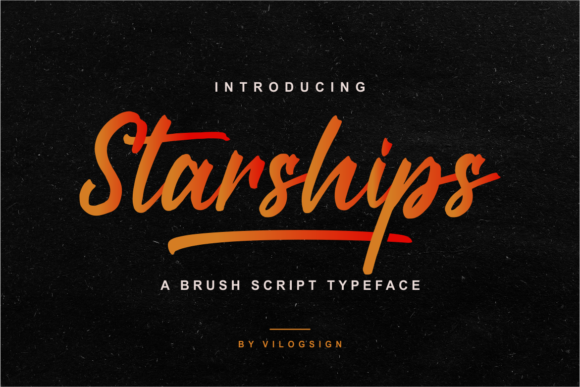
Step into a world of sophistication with Starships Font, the captivating script font that exudes boldness and friendliness. Its versatile style dances across your designs like a shooting star, leaving a trail of elegance and charm.
Picture your business cards adorned with the Starships Font, making a striking first impression that sets you apart from the crowd. Its bold strokes command attention, while its friendly curves invite a closer look. Each letter is a work of art, carefully crafted to convey professionalism and approachability.
Unleash your creativity with Starships Font and craft stunning wedding invitations that capture the essence of love and celebration. Its flowing lines evoke a sense of romance and timeless beauty, making your special day even more unforgettable.
Transform your stationary art into masterpieces with the Starships Font. Its fluid strokes add a touch of whimsy and playfulness, turning ordinary notes and letters into cherished keepsakes. Let your words dance across the page, leaving a lasting impression on your recipients.
Elevate your social media presence with Starships Font, creating eye-catching posts that demand attention. Its bold and friendly nature shines through in every character, making your content stand out from the noise. Engage your audience with captivating visuals that spark curiosity and drive engagement.
With Starships Font, the possibilities are endless. Explore its versatility and watch your designs soar to new heights. Fall in love with its incredibly versatile style and use it to create stunning wedding invitations, beautiful stationary art, eye-catching social media posts, and much more!